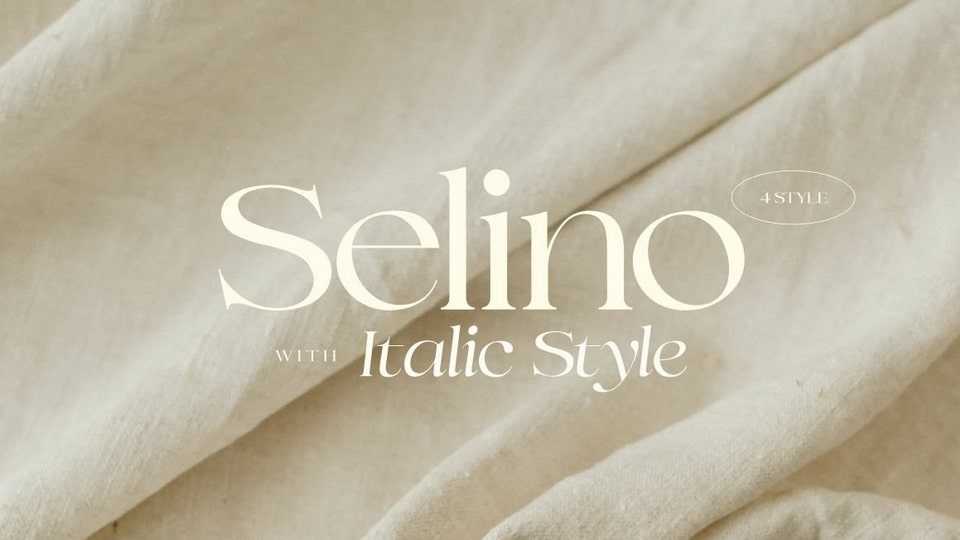
Download Selino font, a sophisticated, charming serif typeface with a fashionable touch. Selino font is specially designed for luxury, elegant, feminine projects, this font is perfectly suitable for creating modern, chic designs.
Designer: Reyrey Blue